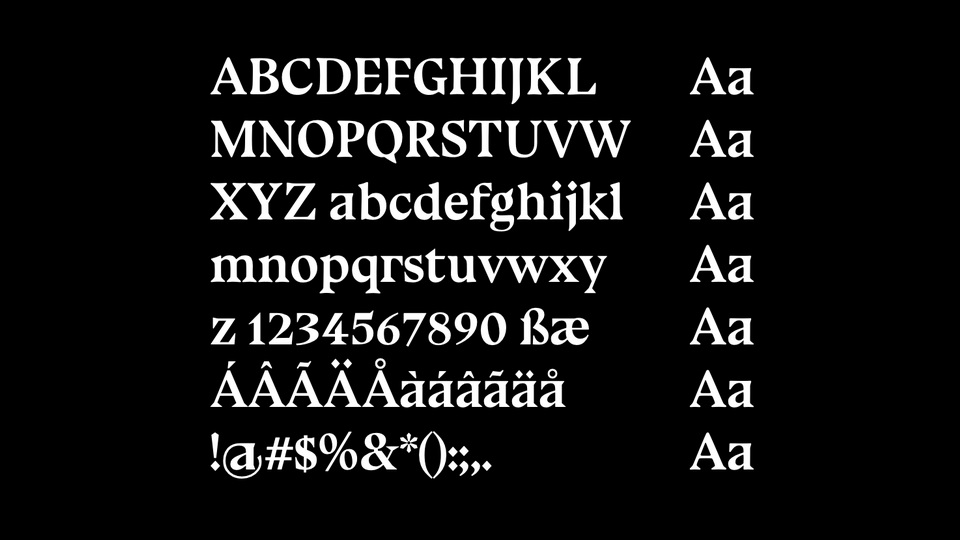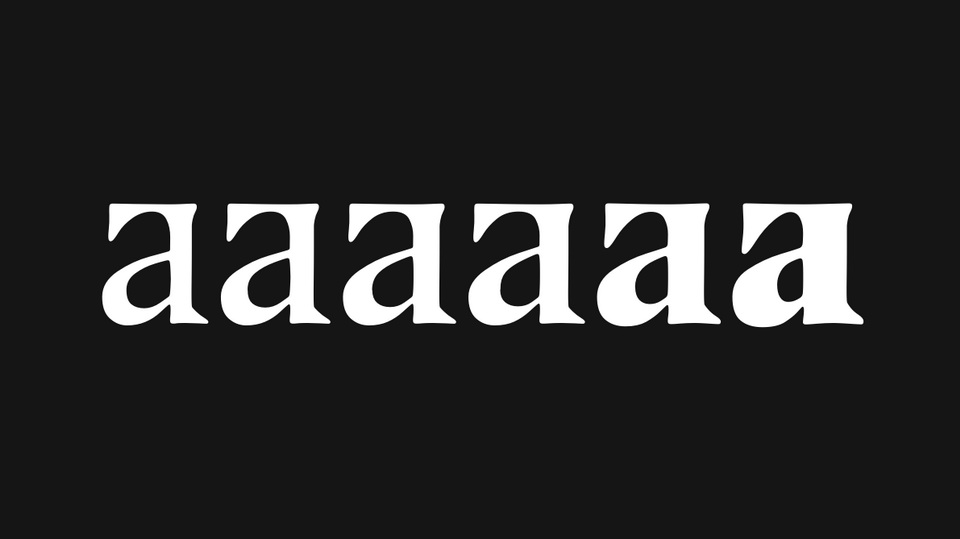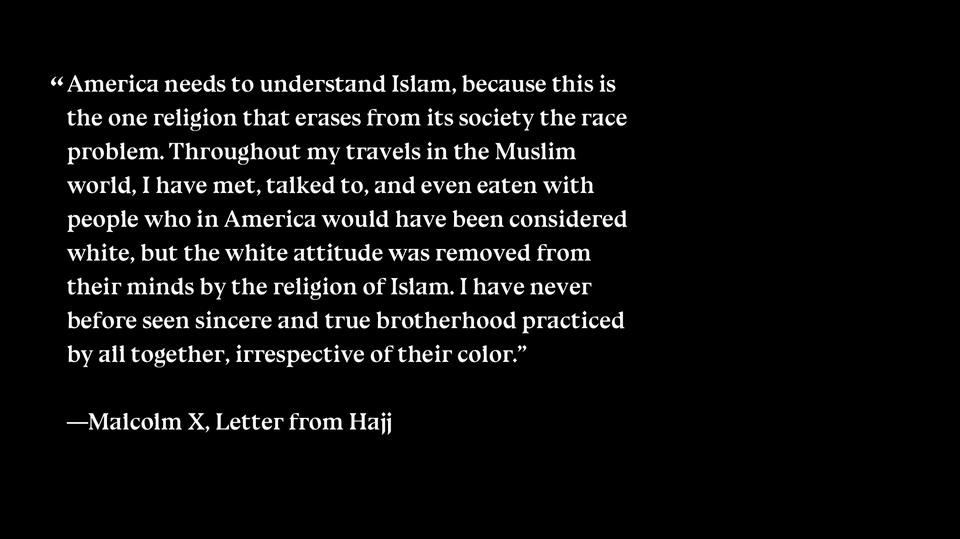
Blue Ocean Typeface
Blue Ocean is a variable font fork of Bluu Next by Jean-Baptiste Morizot, redrawn in quadratic curves by Eli Heuer.
Designed by: Eli Heuer